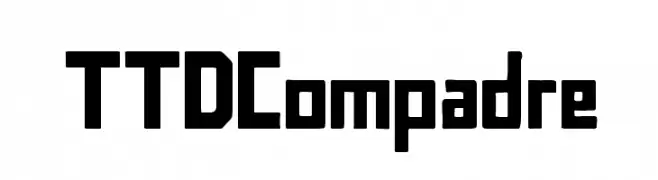
A display font using photographic portraits to form each character.
A bold, decorative font with an urban grid texture and strong visual impact.
A modern, geometric font with intricate line and dot details.
A bold, textured font with a hand-drawn, sketched appearance.
A bold, distressed font with a textured, vintage appearance.
A bold, impactful typeface with strong strokes and tight spacing.
A bold, modern font with thick strokes and geometric shapes.
A bold, condensed font with high contrast and a modern style.
A refined, high-contrast serif font with elegant, narrow characters.
A bold, outlined font with uniform width and strong presence.
A whimsical, elegant cursive font with intricate loops and swirls.
A vintage typewriter-style font with a textured, elegant appearance.
A bold, decorative font with a distressed, vintage texture.
A decorative, grid-patterned font with an industrial and structured style.
A bold, textured font with characters made of small text, evoking a newspaper print style.
A bold, halftone-patterned font with a dynamic and textured appearance.
A modern, minimalist font with geometric shapes and dot embellishments.
A bold, hand-drawn font with thick, brush-like strokes and an energetic style.
A bold, textured font with a cracked stone appearance.
A bold, spiky font with jagged edges for dynamic visual impact.
A bold, distressed decorative font with a rugged, vintage aesthetic.
A bold, textured font with a distressed, vintage appearance.
A bold, textured, hand-drawn font with a dynamic and artistic style.